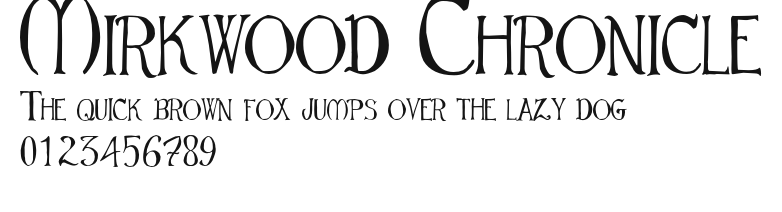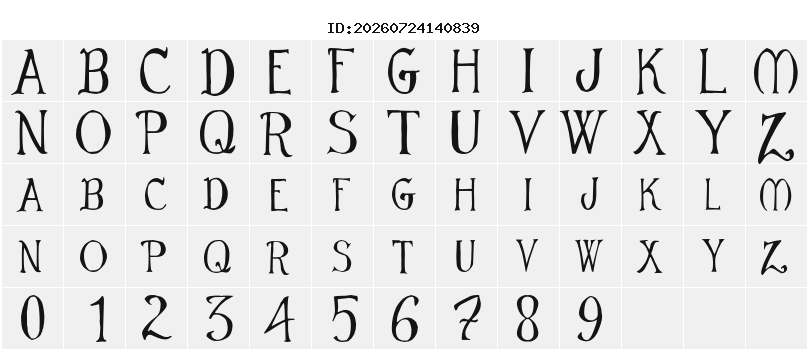
• Font Name: Mirkwood Chronicle
• Designer: Bill Roach / W.K. Roach
• Description: This font is loosely based upon the hand drawn letter styles of the maps of J.R.R. Tolkien. This font is a type set originally hand drawn by W.K. Roach, and then digitized for use in commercial and non commercial media products and publications. The font was completed as an initial beta release on April 11, 2012, 11:42 PM EST.